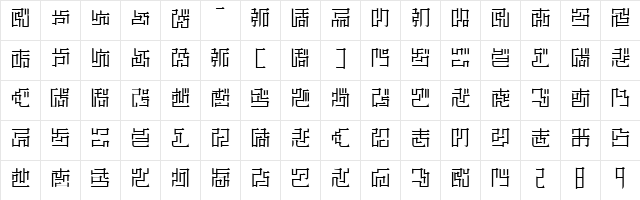
ZetueiMincho HIR
Style: HIR
Design Context for ZetueiMincho
ZetueiMincho is a composed and adaptable typeface that performs quietly and consistently across a wide range of design contexts.